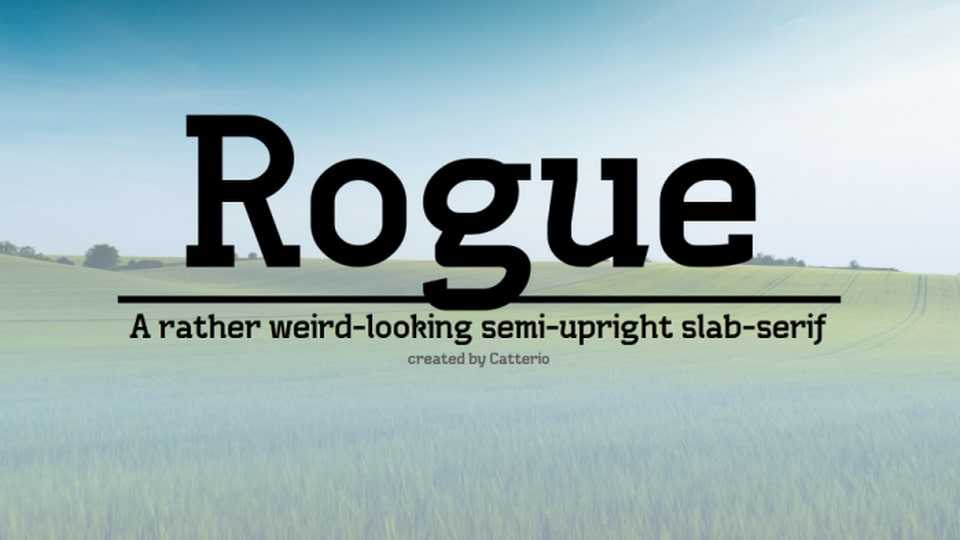
Download Rouge font, a distinctive and versatile semi-upright slab-serif typeface that strikes a perfect balance between modern sophistication and timeless charm. Rouge font combines the sturdy presence of slab serifs with a semi-upright stance, resulting in a unique and contemporary aesthetic.